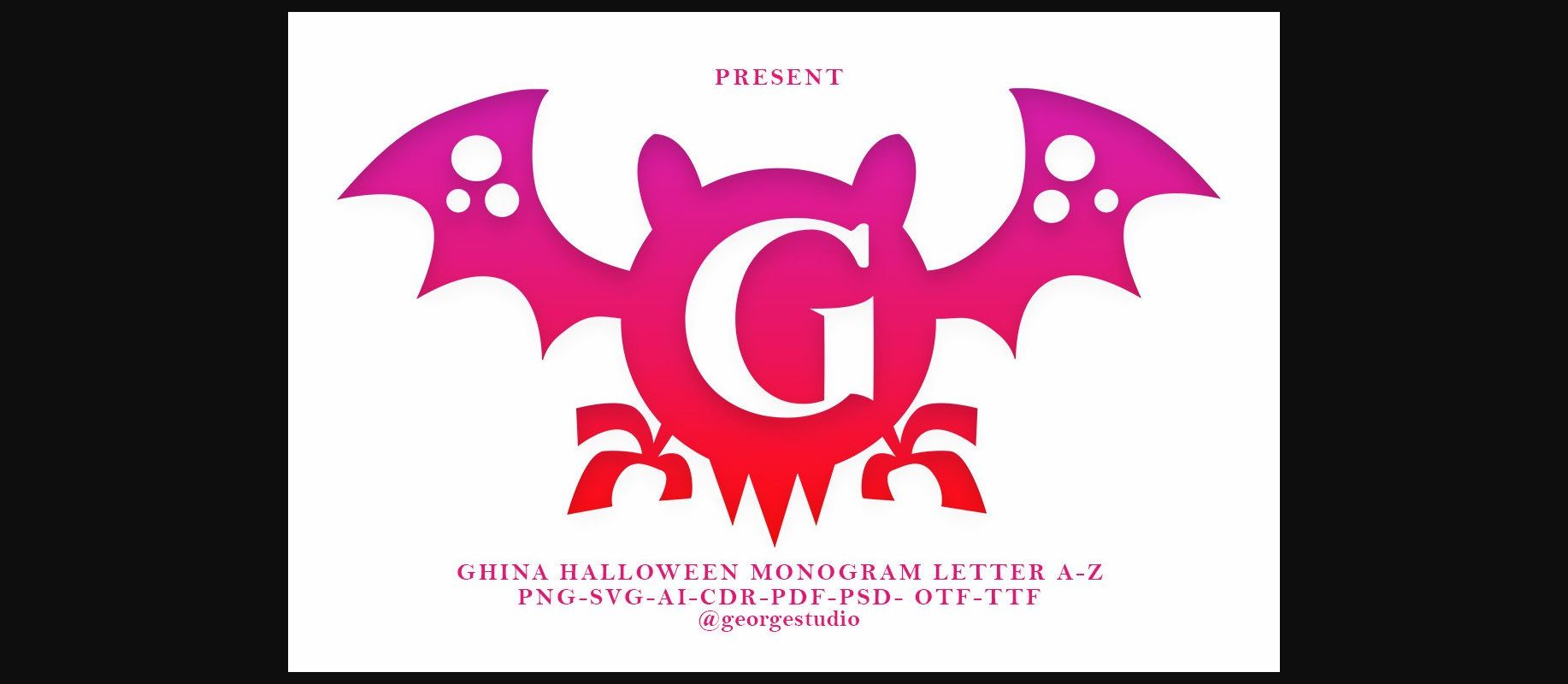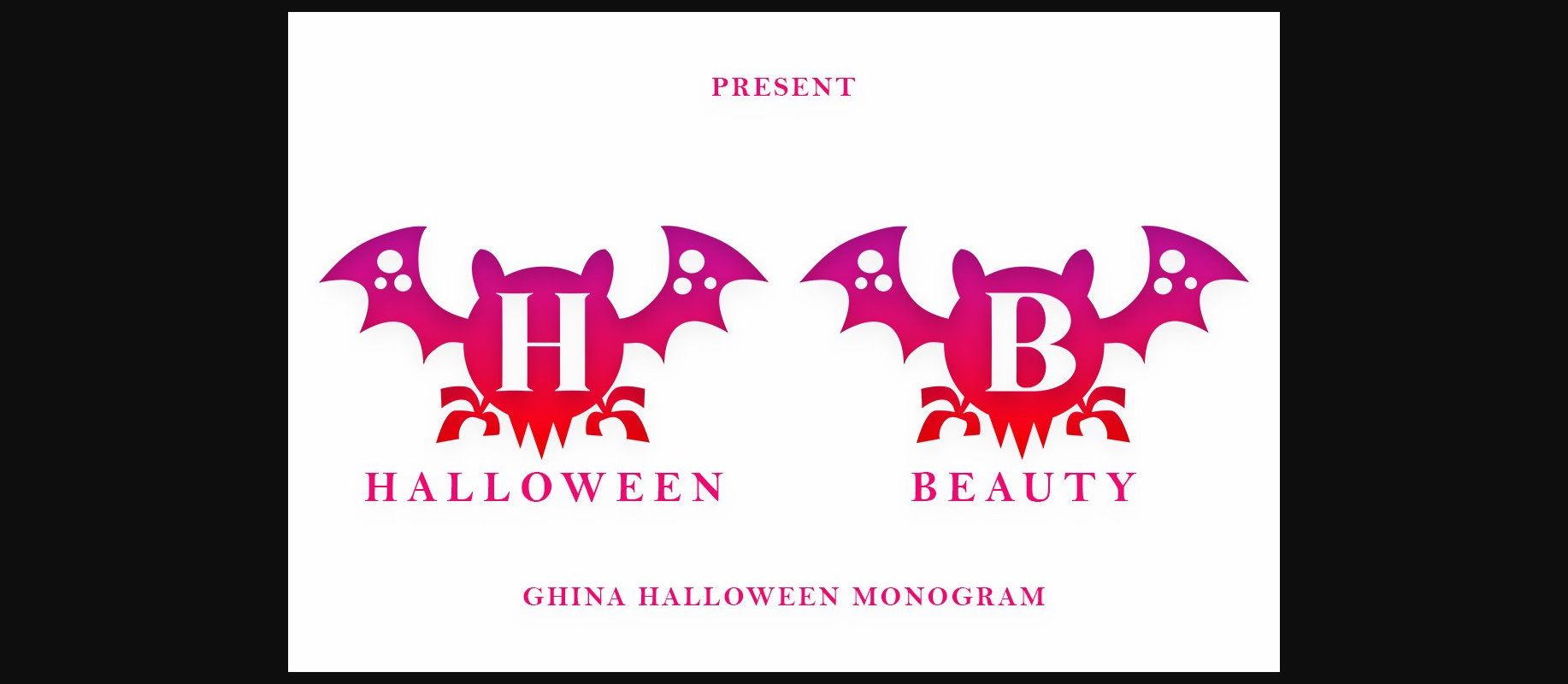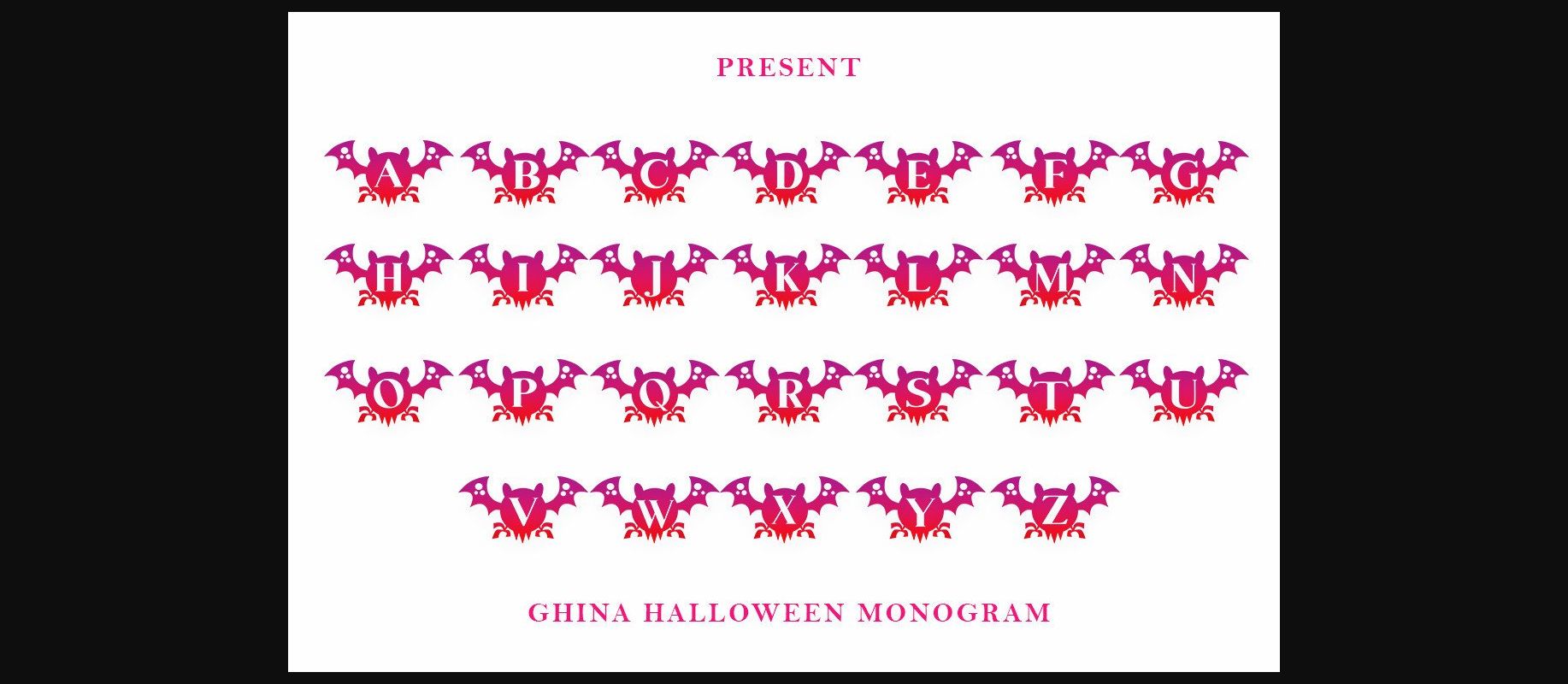
About Ghina Halloween Monogram Font
Ghina Halloween Monogram is a spooky decorative font. Get inspired by its incredibly youthful feel.
Masterfully designed to become a true favorite, this font has the potential to bring each of your creative ideas to the highest level!